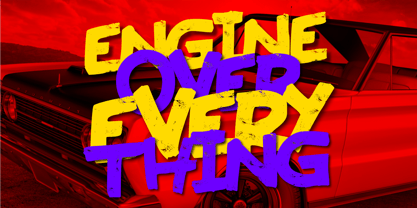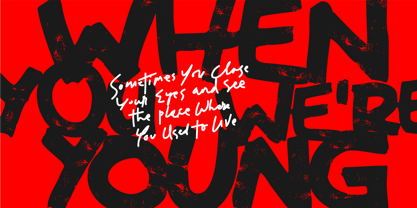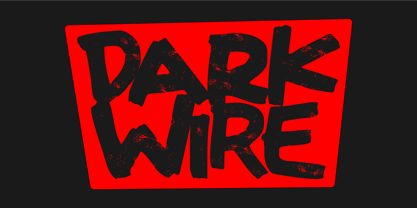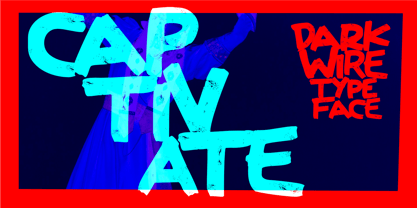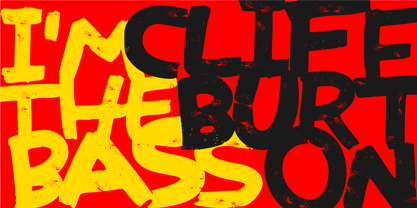
Dark Wire
von Epiclinez
Die Schriftfamilie Dark Wire wurde von Aldy Sidik entworfen und von Epiclinez veröffentlicht. Dark Wire enthält 1 Stile.
Dark Wire is a raw, industrial grunge font inspired by tangled cables, electrical tension, and dark urban energy. Its sharp strokes, fractured forms, and wired textures create a visual impact that instantly grabs attention and holds it. Built for designers who crave intensity and atmosphere, Dark Wire excels in posters, album covers, movie titles, cyberpunk visuals, horror projects, streetwear, and underground branding. Every letter feels unstable, electric, and alive — like a signal running through broken steel. This font doesn’t whisper. It pulls the eye, locks the focus, and refuses to let go. Dark Wire — Designed to Captivate.
Designer: Aldy Sidik
Herausgeber: Epiclinez
Foundry: Epiclinez
Eigentümer des Designs: Epiclinez